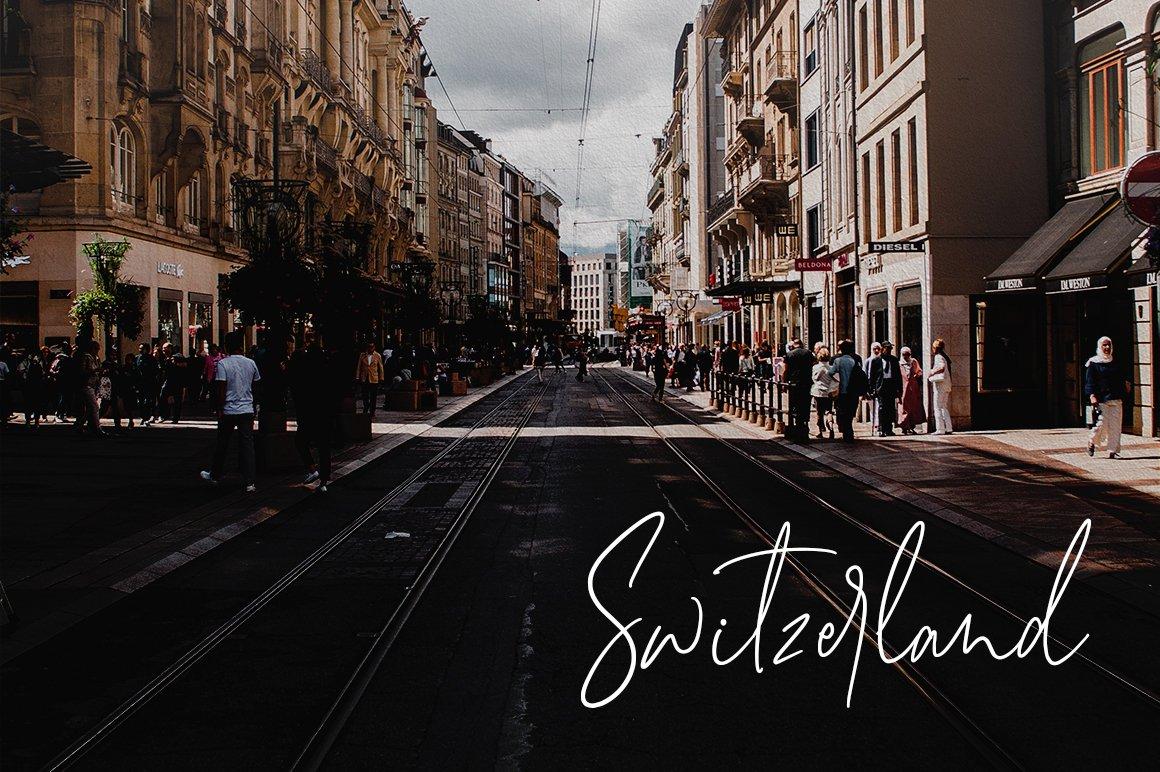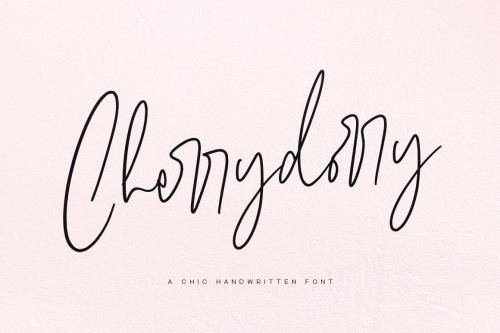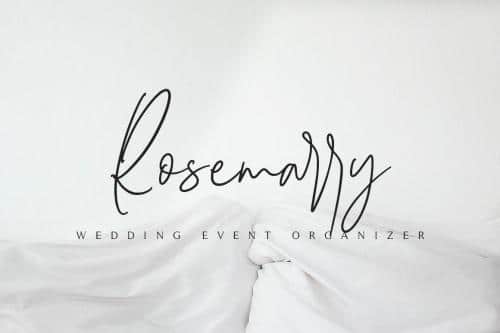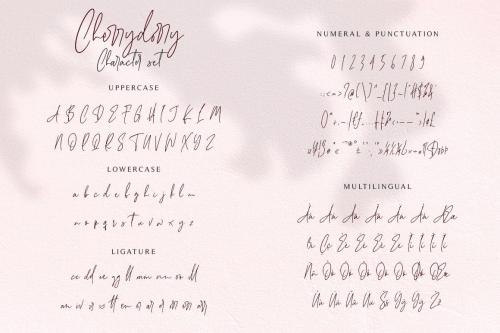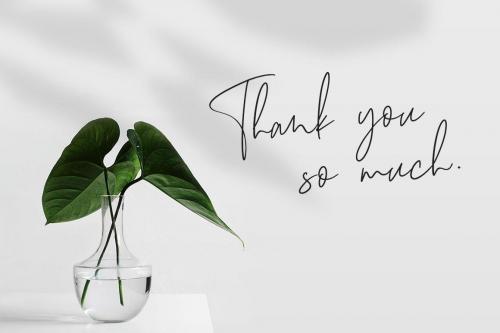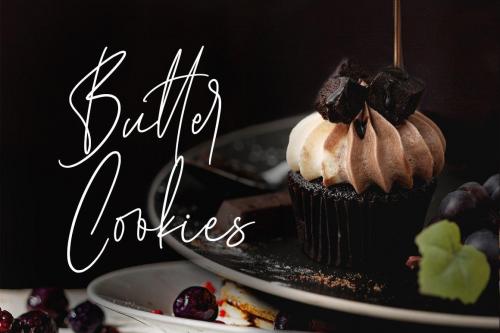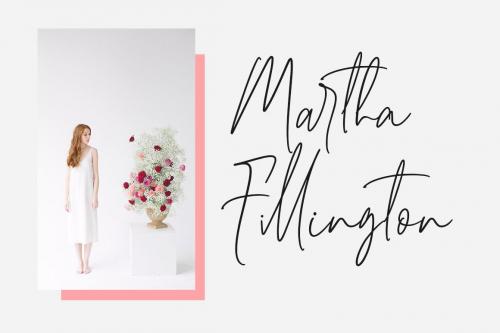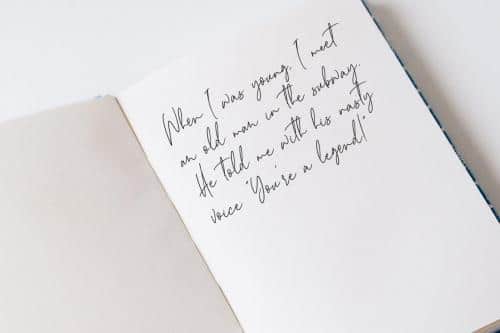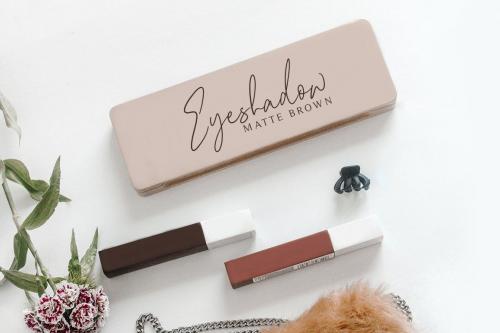
Cherrydorry, a chic and elegant handwritten font with classy ligatures. It also support multilingual characters and absolutely PUA encoded.
I recommend this font for logo, business card, fashion design, beauty design, magazine, or a movie. With natural handwriting and a lovely pen stroke, Cherrydorry will blend into your design.